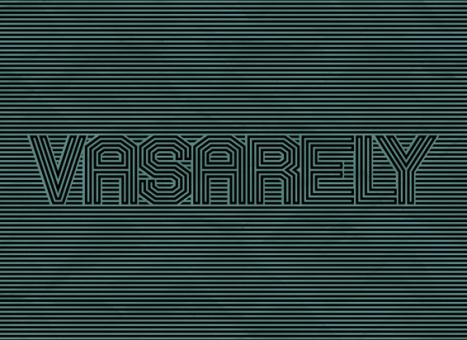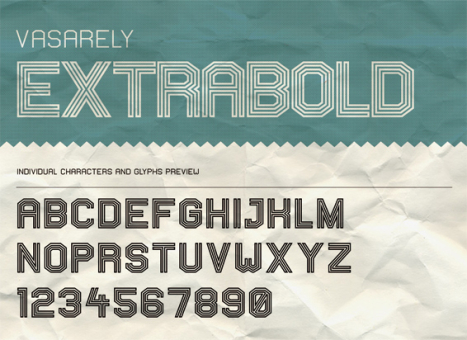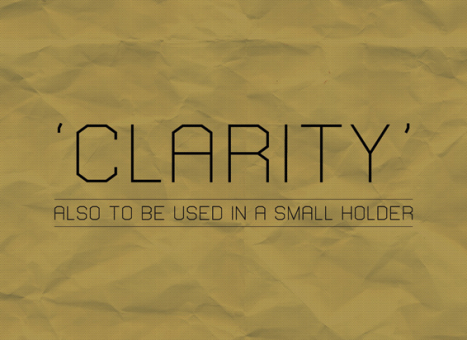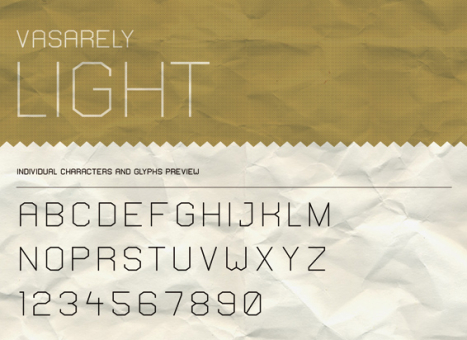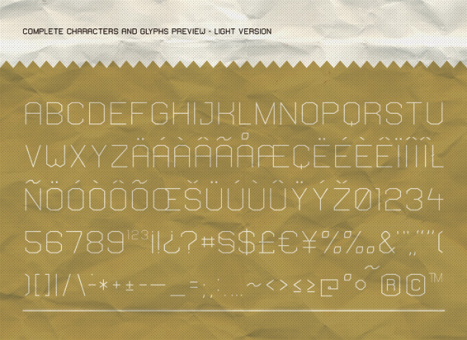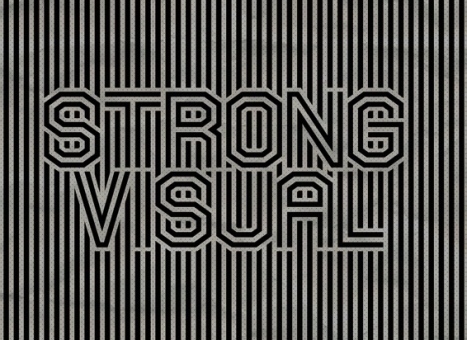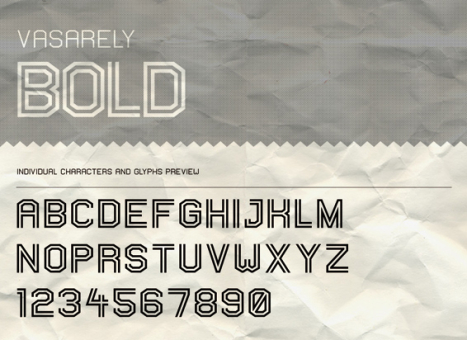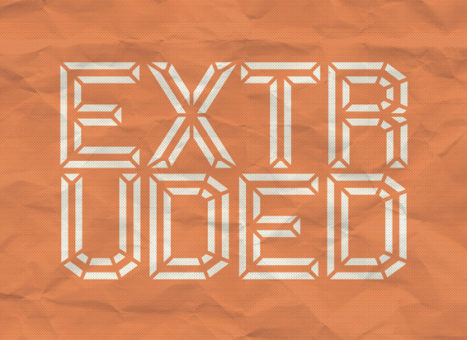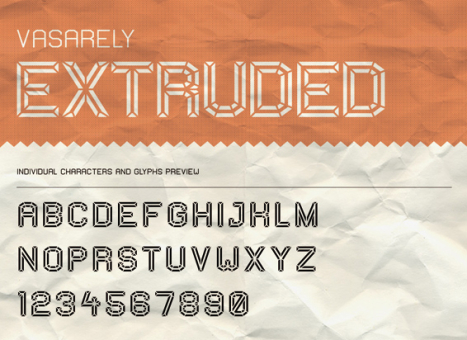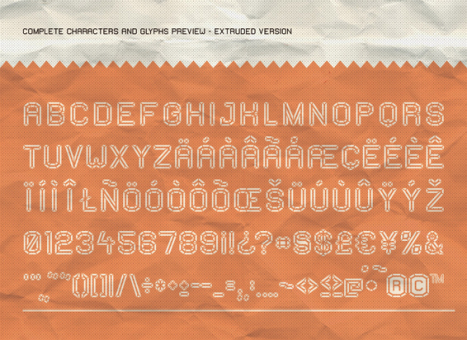
VASARELY
VASARELY has famous roots, its name is related to optical arts own Victor Vasarely. Dropping the field of Op-Art, you already know where we have been aiming at. The REGULAR and LIGHT cuts of VASARELY are quite ordinary, rectangular, but legible typefaces, but with the BOLD and EXTRABOLD versions you will be able to build diverse illusive type illustrations and layouts. Being build on a strict grid with same dimensions, the eye-affecting black-and-white contrast should trigger different optical effects. As an extra we build an EXTRUDED version as well. Have fun!